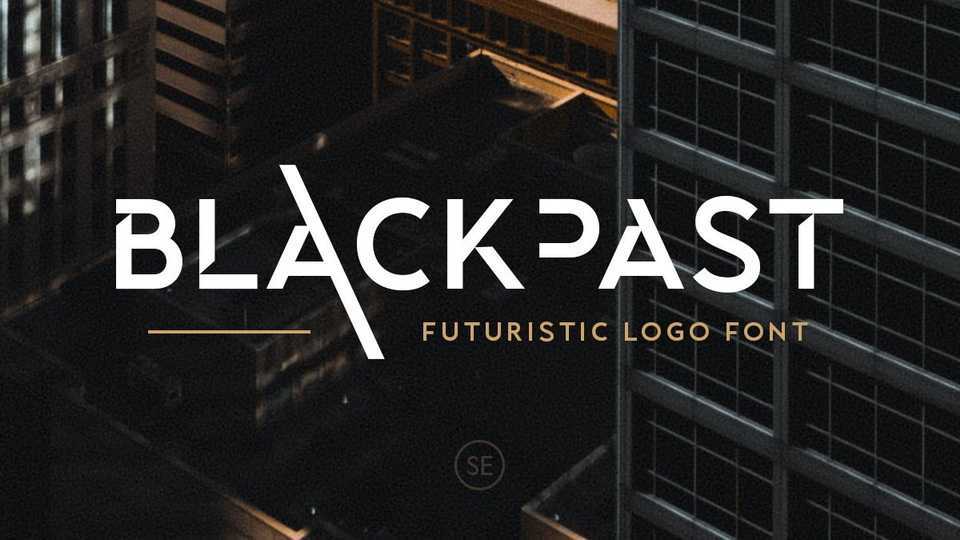
Download Blackpast font, a display typeface with unique lowercase that will make your design looks futuristic and modern. You can use Blackpast for any purpose, especially to make logotype.